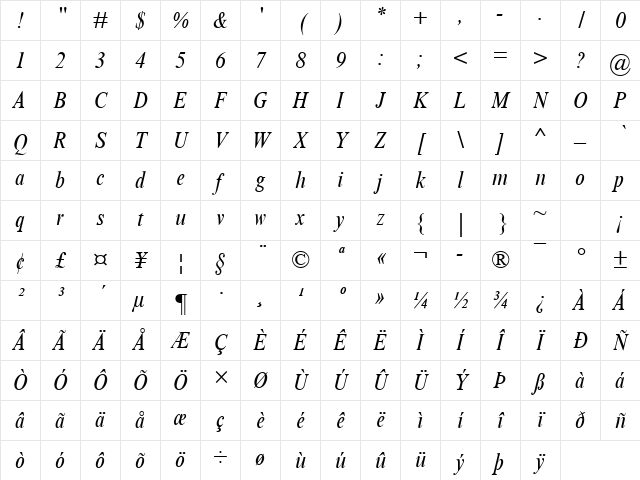
Complete Times NR Condensed Italic glyph index. Displaying only characters natively supported by Times NR Condensed Italic font.
Times NR Condensed is a composed and adaptable typeface that performs quietly and consistently across a wide range of design contexts. The slanted form adds forward momentum and visual energy. Its narrow stance lets it pack a punch even in space-constrained designs.
Pro Tip: Use Times NR Condensed for emphasis, pull quotes, and subheadings where its slanted energy can add rhythm to the layout.